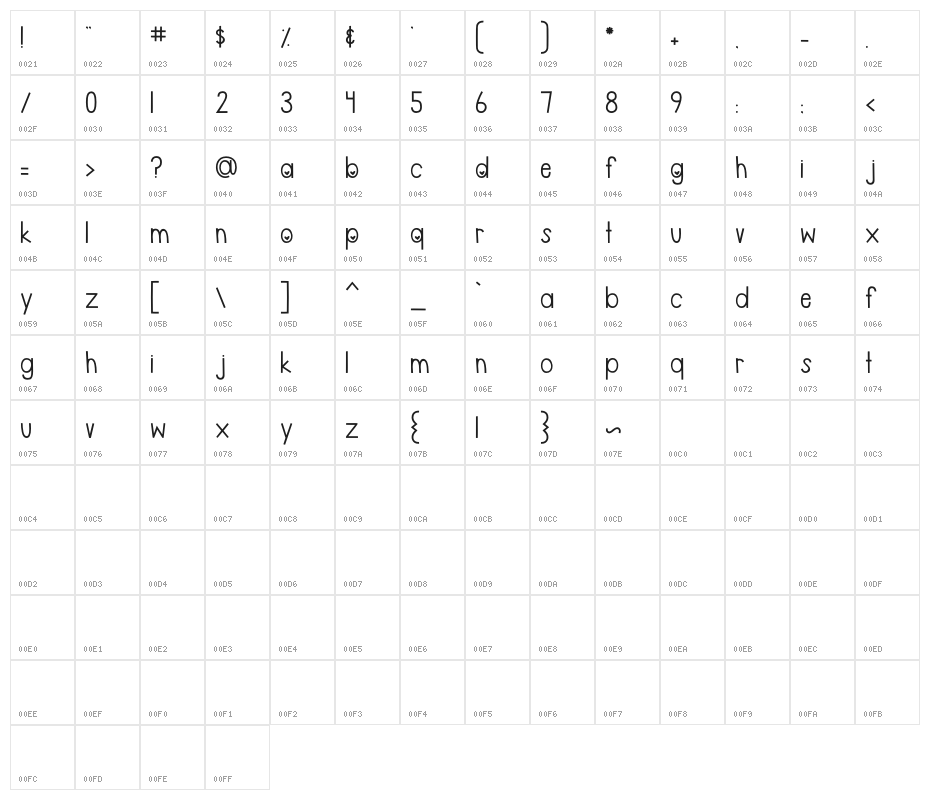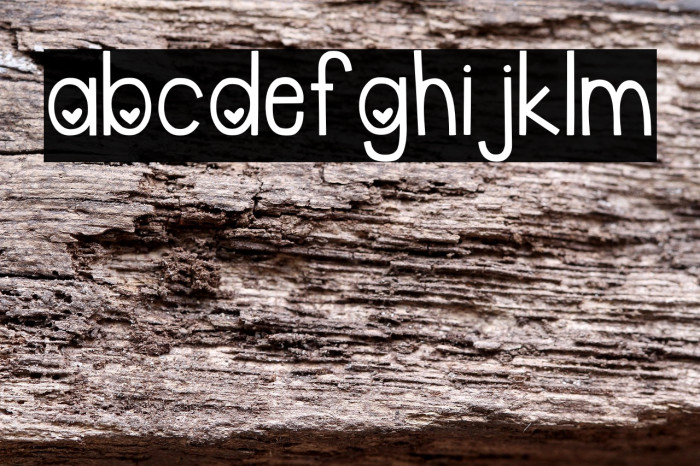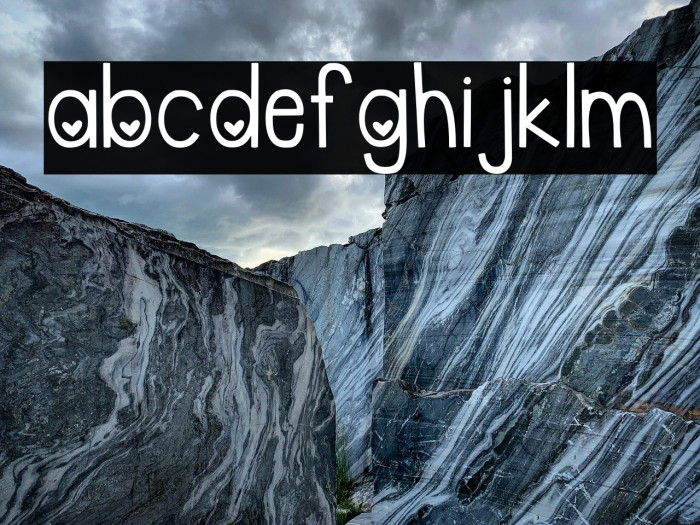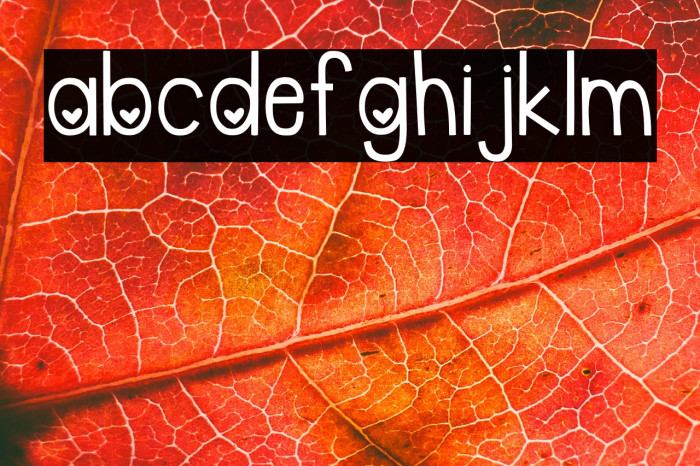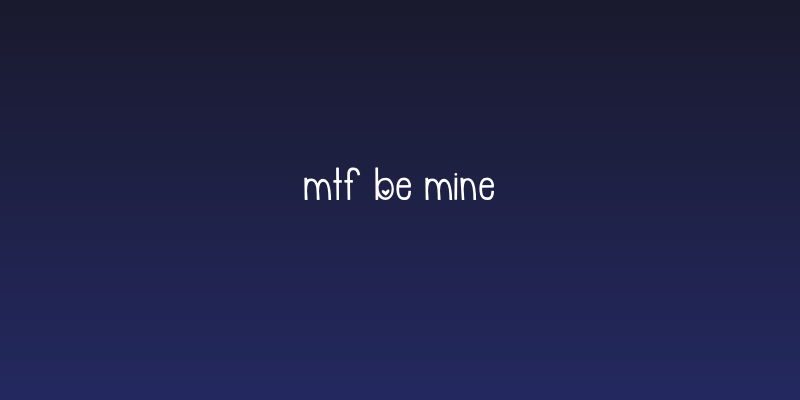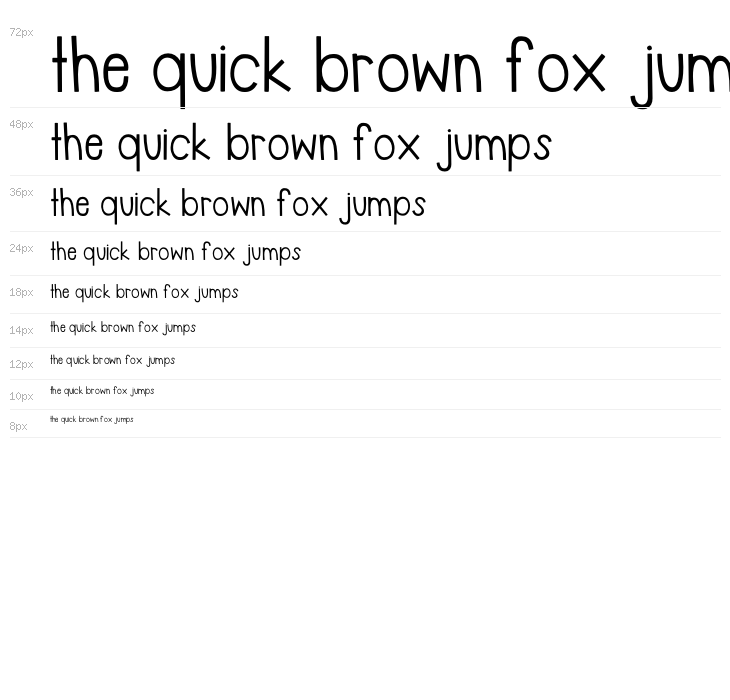
MTF Be Mine Font
MTF Be Mine Description
This playful and whimsical font features a unique design where each lowercase letter 'o' is adorned with a heart shape, adding a touch of charm and friendliness. The characters are rounded and slightly elongated, giving them a casual and approachable appearance. The font maintains a consistent stroke width, which contributes to its clean and modern look. The uppercase letters mirror the style of the lowercase, maintaining the same playful aesthetic. Numbers and special characters are designed to match the overall theme, ensuring a cohesive look across all text elements.
| Use Case | Headlines, Logos, Decorative text |
| Proposed Projects | Ideal for children's books, greeting cards, playful branding, and any project that requires a friendly and whimsical touch. |